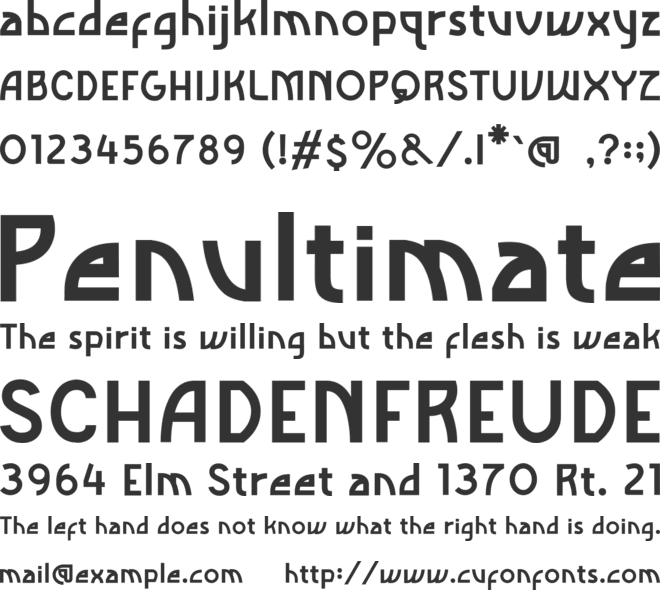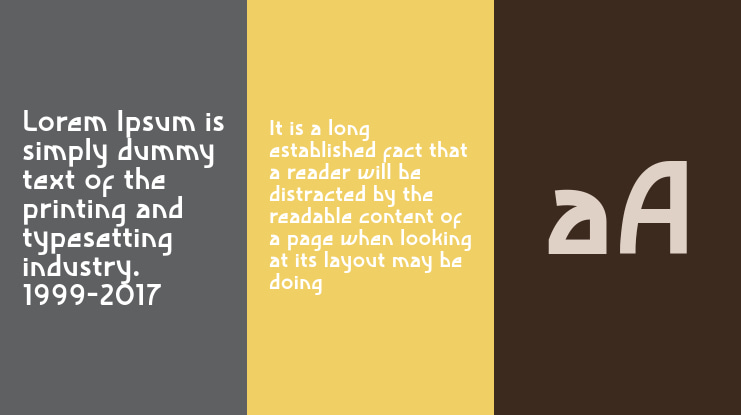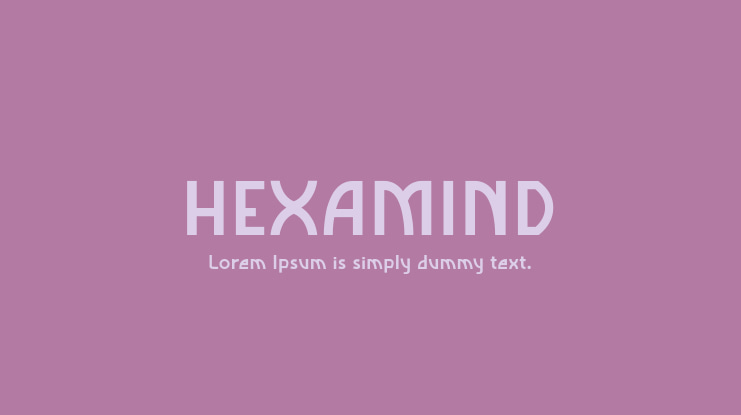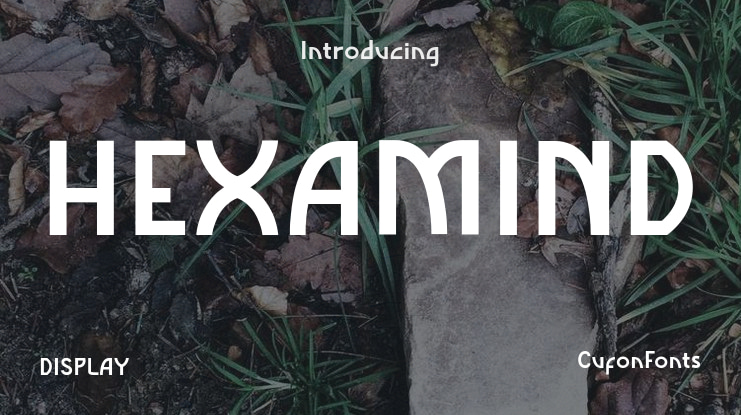
HEXAMIND Font
Introducing Hexamind, the bold and modern display font perfect for any professional project. With its unique and timeless style, Hexamind adds a touch of sophistication to any design.Creator Note :By installing or using this font, you are agree to the Product Usage Agreement:= This font is ONLY for PERSONAL USE. NO COMMERCIAL USE ALLOWED= For Corporate/Commercial license please visit https://www.behance.net/gallery/159836465/HEXAMIND-A-DISPLAY-FONT?tracking_source=project_owner_other_projectsFollow our instagram for update : arliyancreativeThank you.